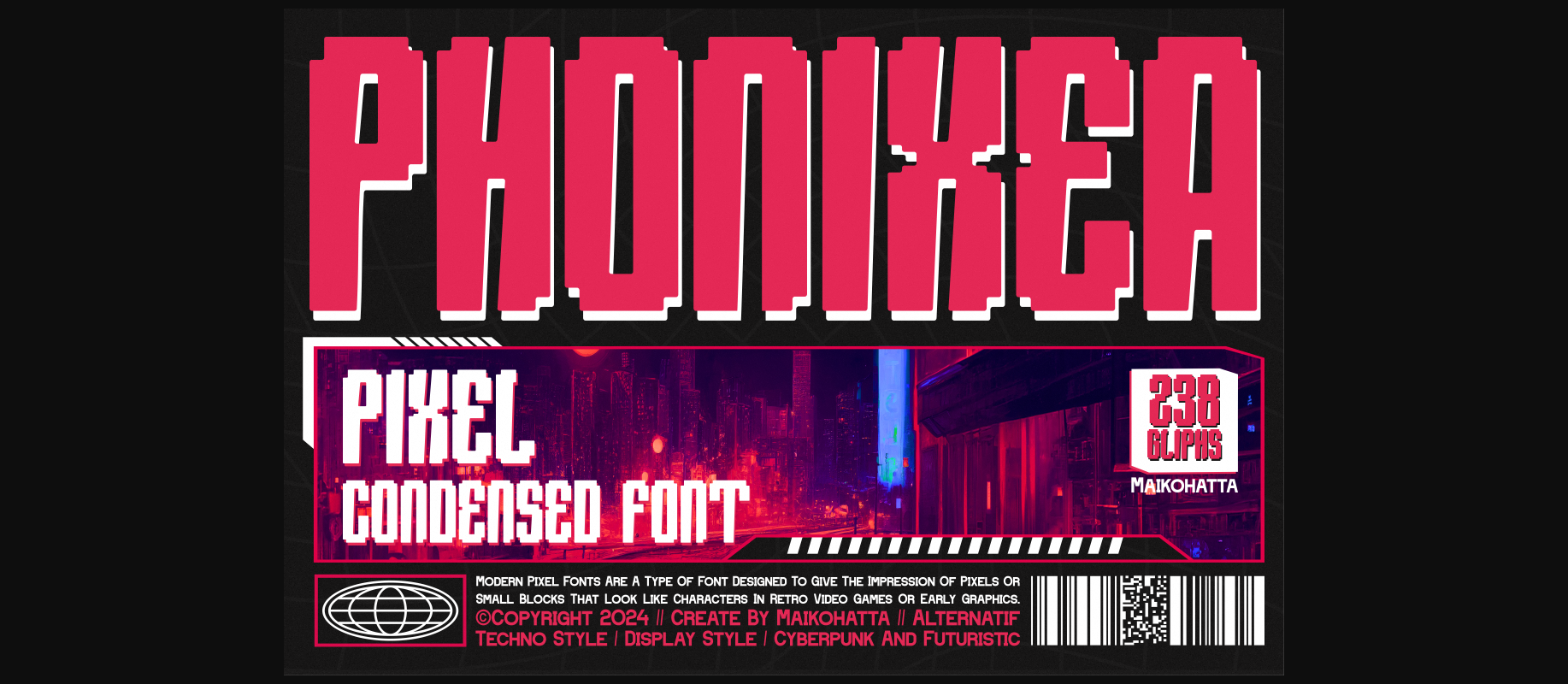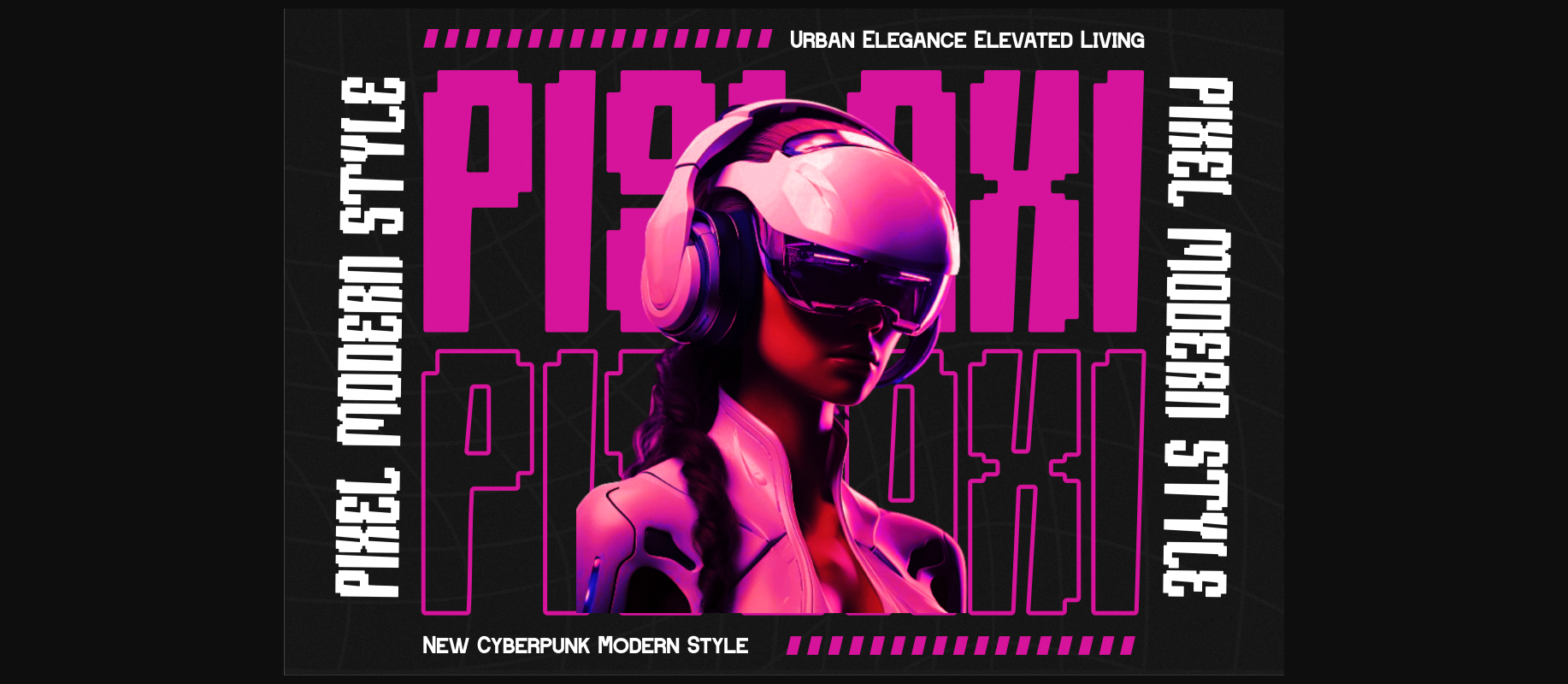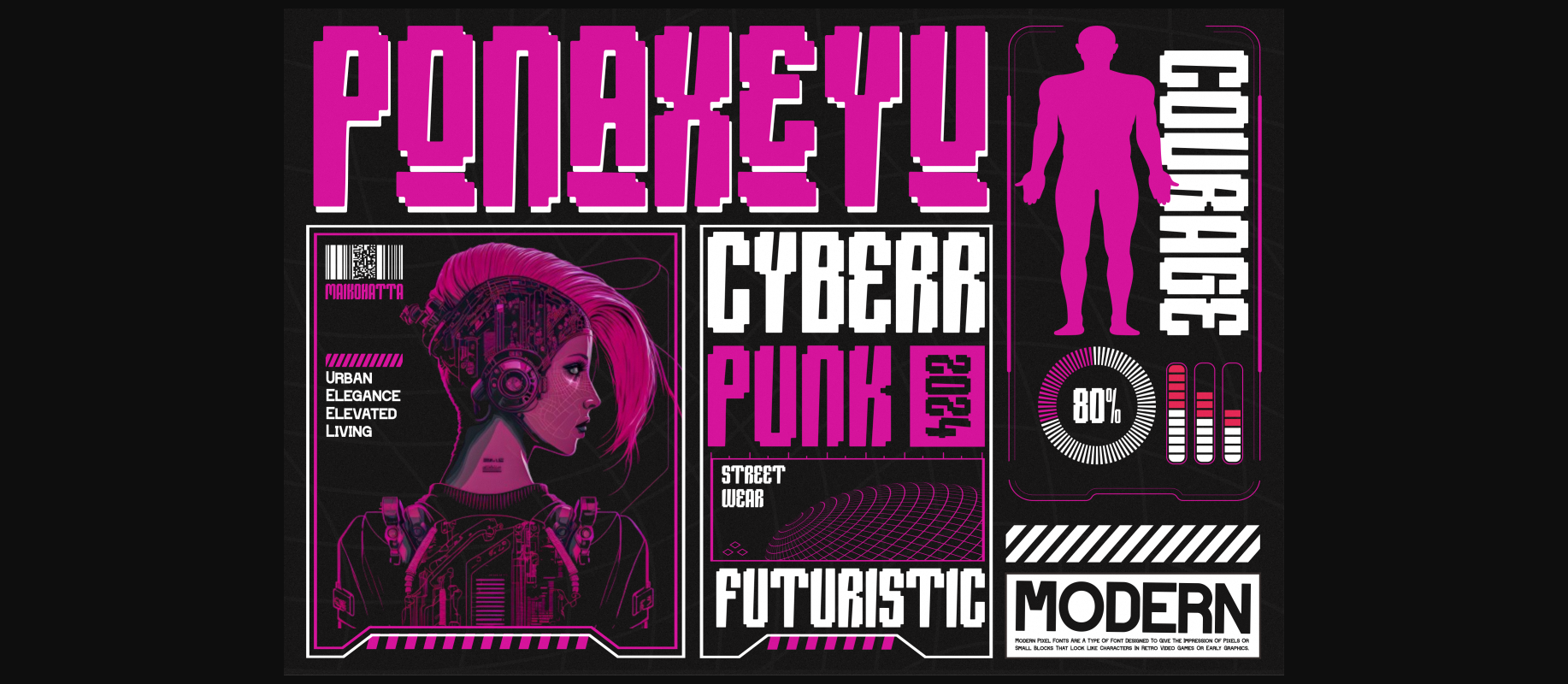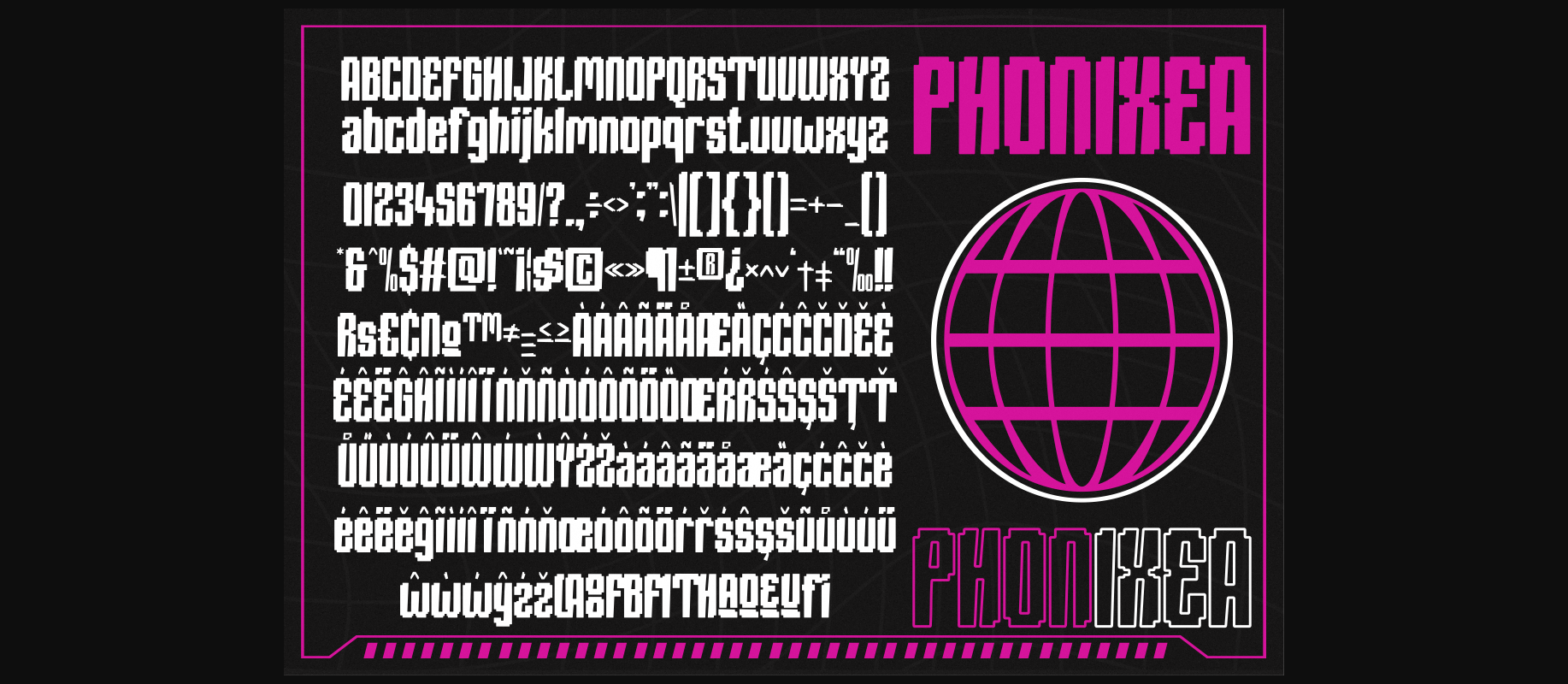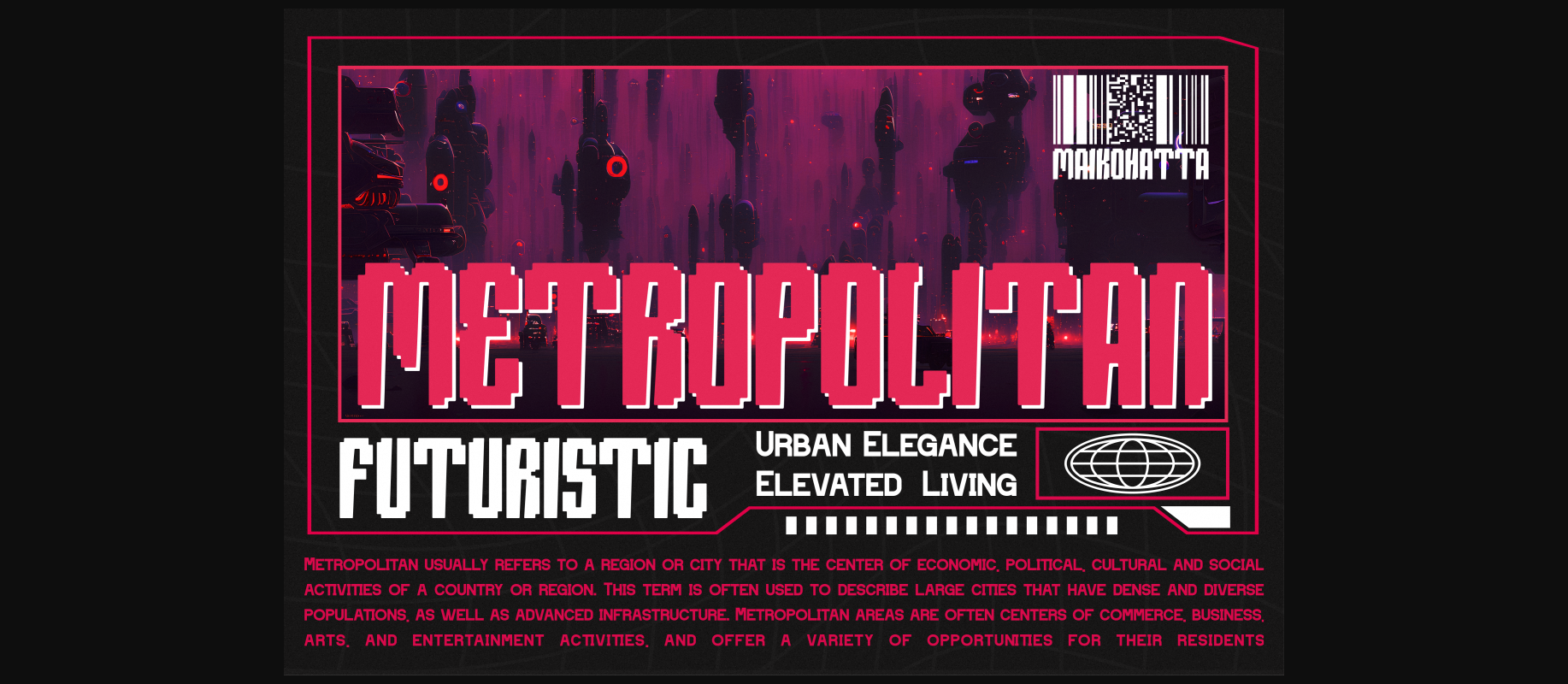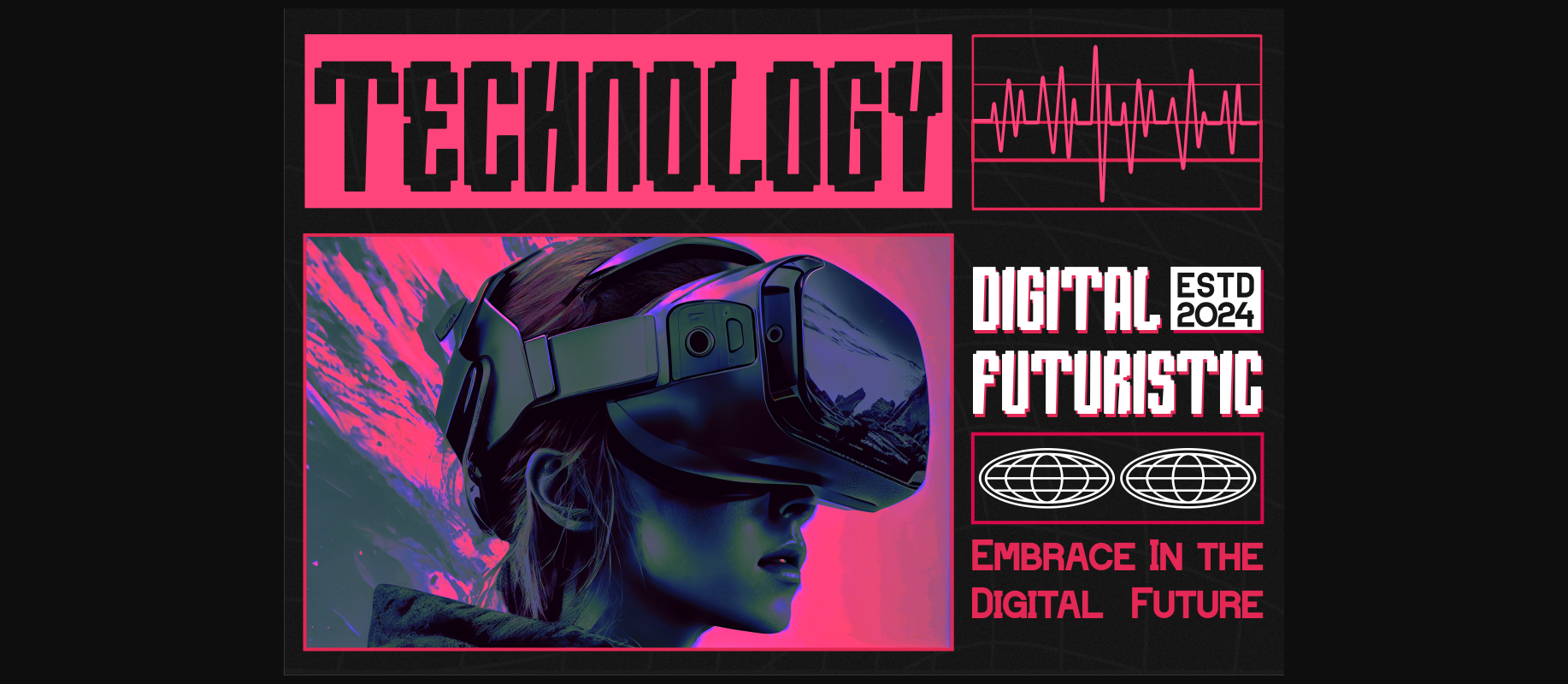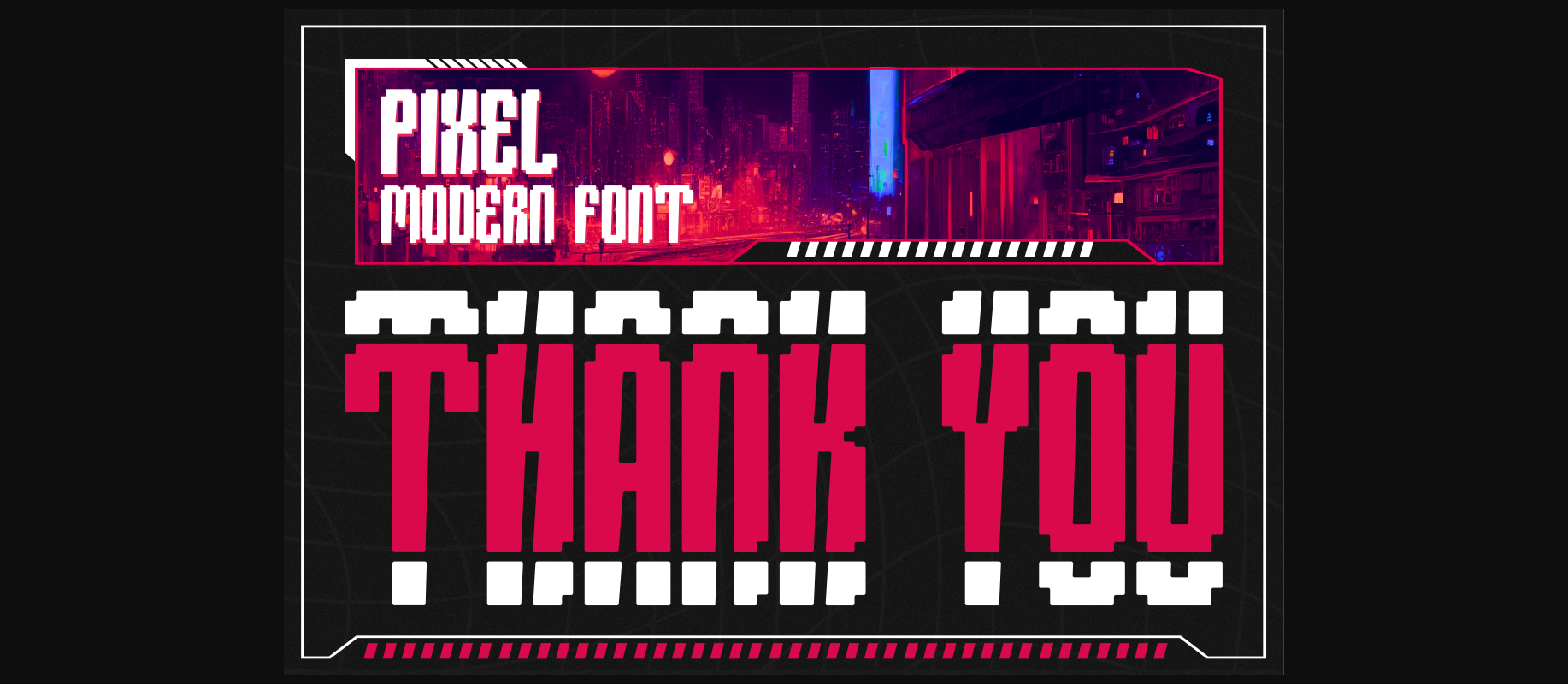
Phonixea – Pixel Condensed Font
About Phonixea – Pixel Condensed Font
Phonixea is a type of lettering that features a futuristic design inspired by advanced technology. This font reflects the digital era and technological advancements, bringing a sense of modernity, innovation, and energy to any design. With sharp lines, geometric letter shapes, and futuristic elements, this font is suitable for projects related to technology, robotics, science, and modern lifestyle.